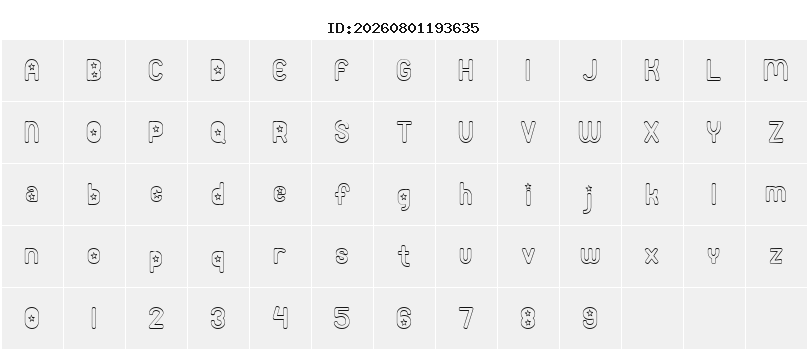
• Font Name: LD Lone Star
• Full Font Name: LD Lone Star
About LD Lone Star.ttf
LD Lone Star.ttf is a modern, elegant sans-serif font designed for ultimate readability and visual harmony. Perfect for branding, headlines, web design, and print materials.